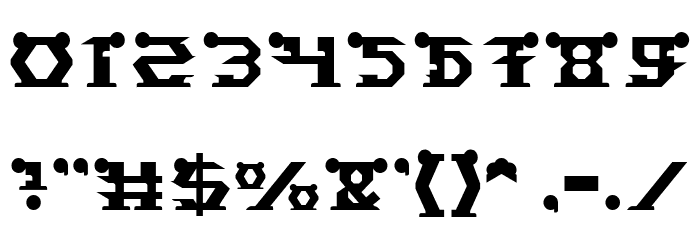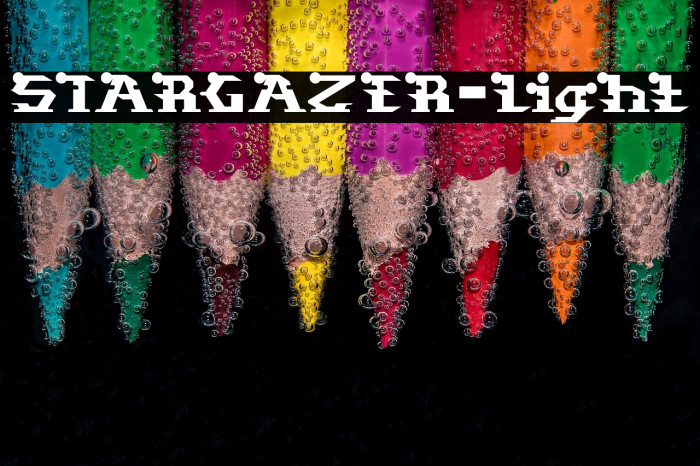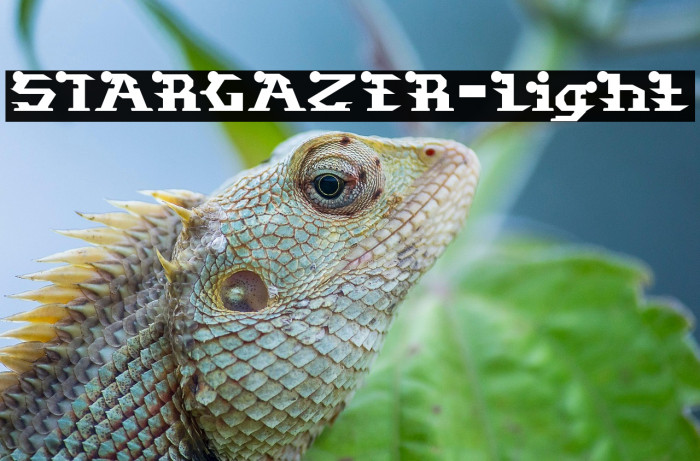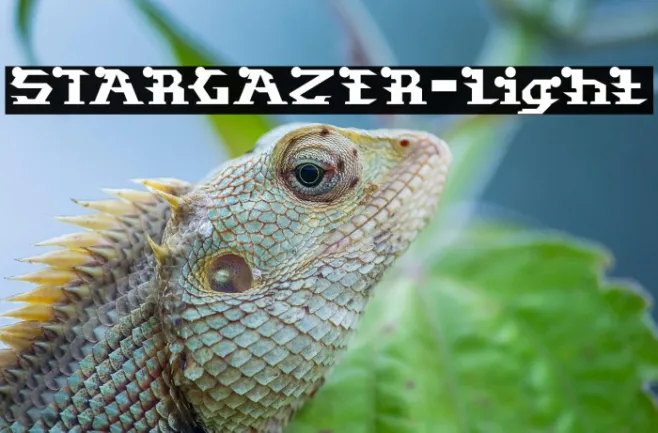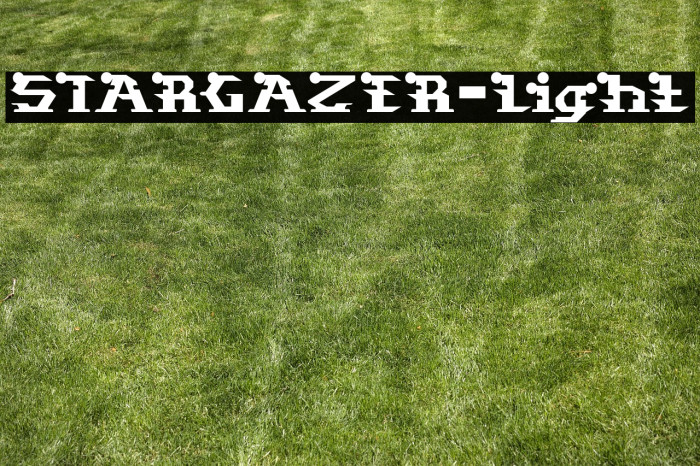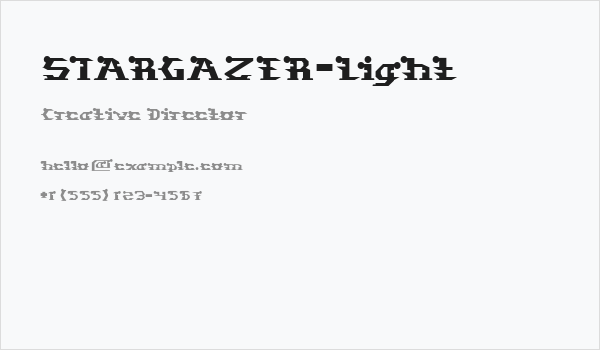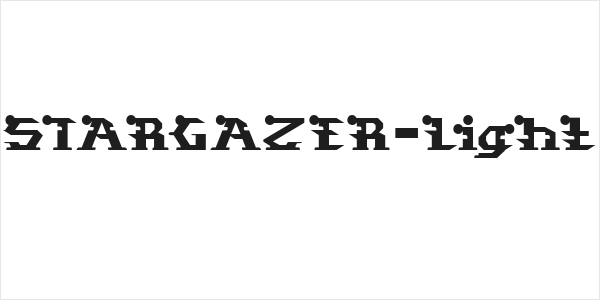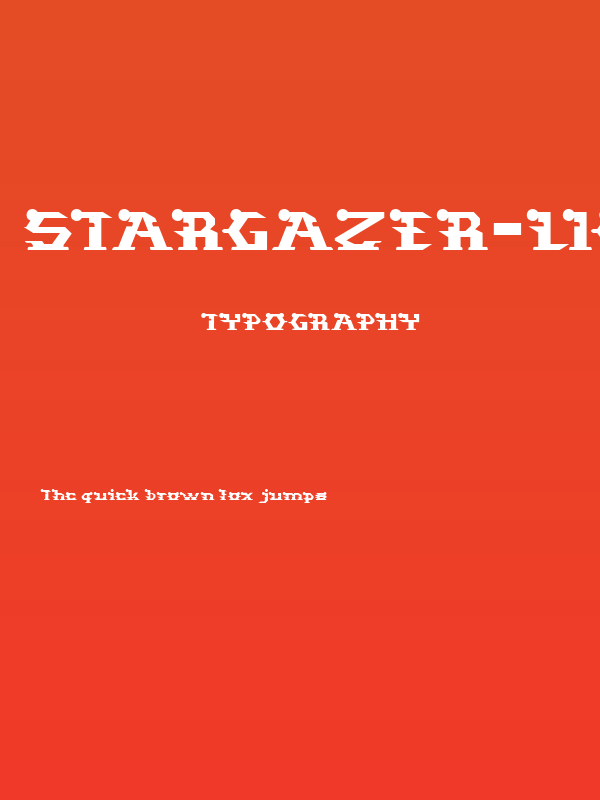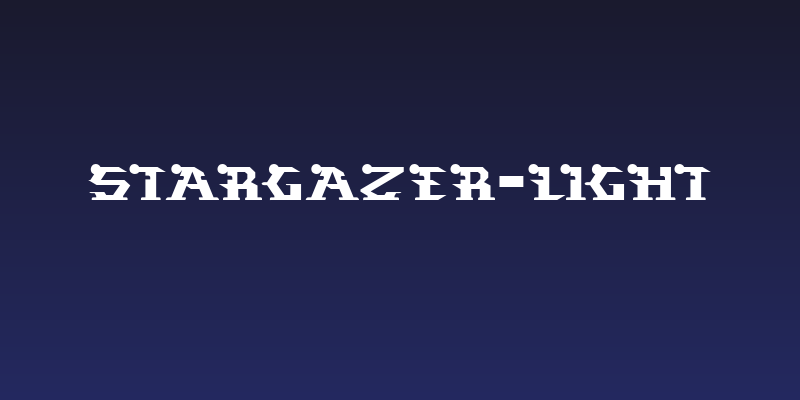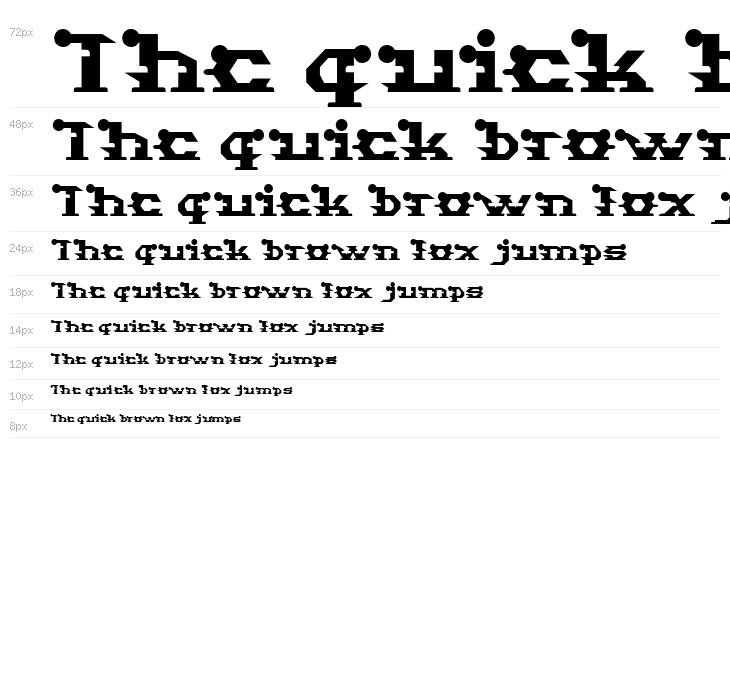
STARGAZER-Light Font
STARGAZER-Light Description
This font features a bold and geometric design with a futuristic and industrial feel. The characters are constructed with sharp angles and unique cutouts, giving it a distinct and edgy appearance. The uppercase and lowercase letters maintain a consistent style, with the lowercase being slightly more compact. Numbers and special characters follow the same design principles, ensuring uniformity across all glyphs. The font's boldness and unique style make it stand out, ideal for projects that require a modern and unconventional look.
| Proposed Projects | Ideal for sci-fi themed designs, video game titles, posters, and branding that requires a modern and edgy look. |